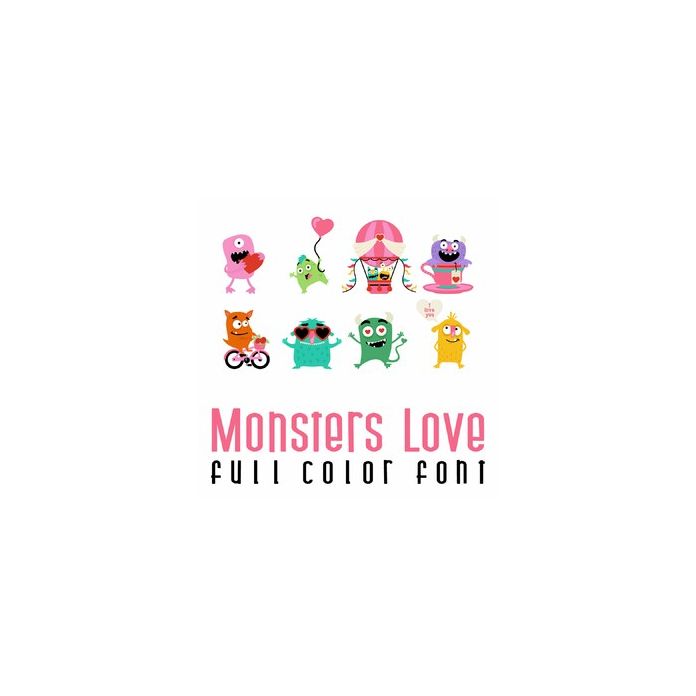
This adorable full-color doodlebat font features 26 fun-loving monsters ready for Valentine's. Perfect for cards, crafts, gifts, decor, scrapbook pages, planner stickers, and more!